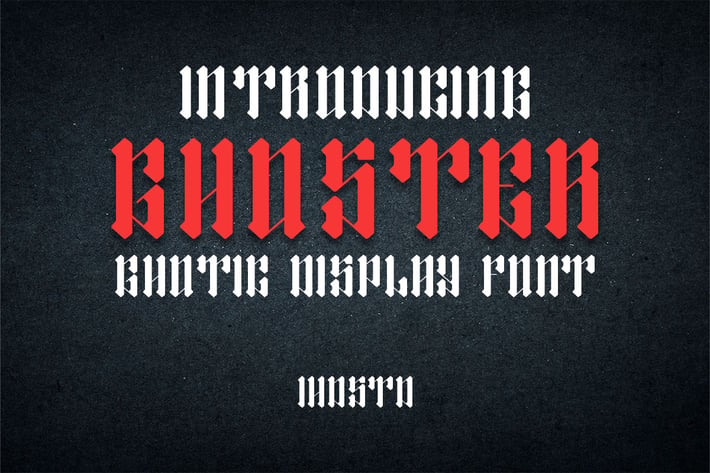
Ghoster Ghotic Display Font
Ghoster Ghotic Display Font Display font is our new item suitable for your Posters.
Great for Logo, Poster, Sticker, Jerseys, Invitation Card, Brochure, etc.